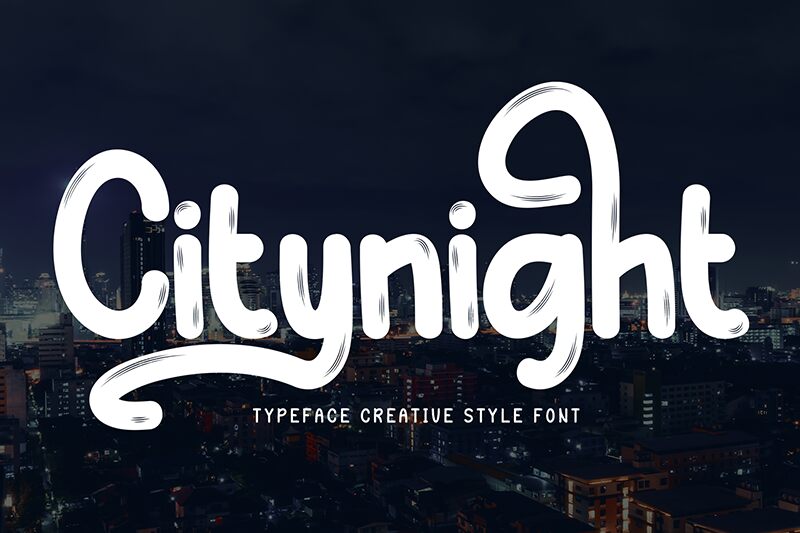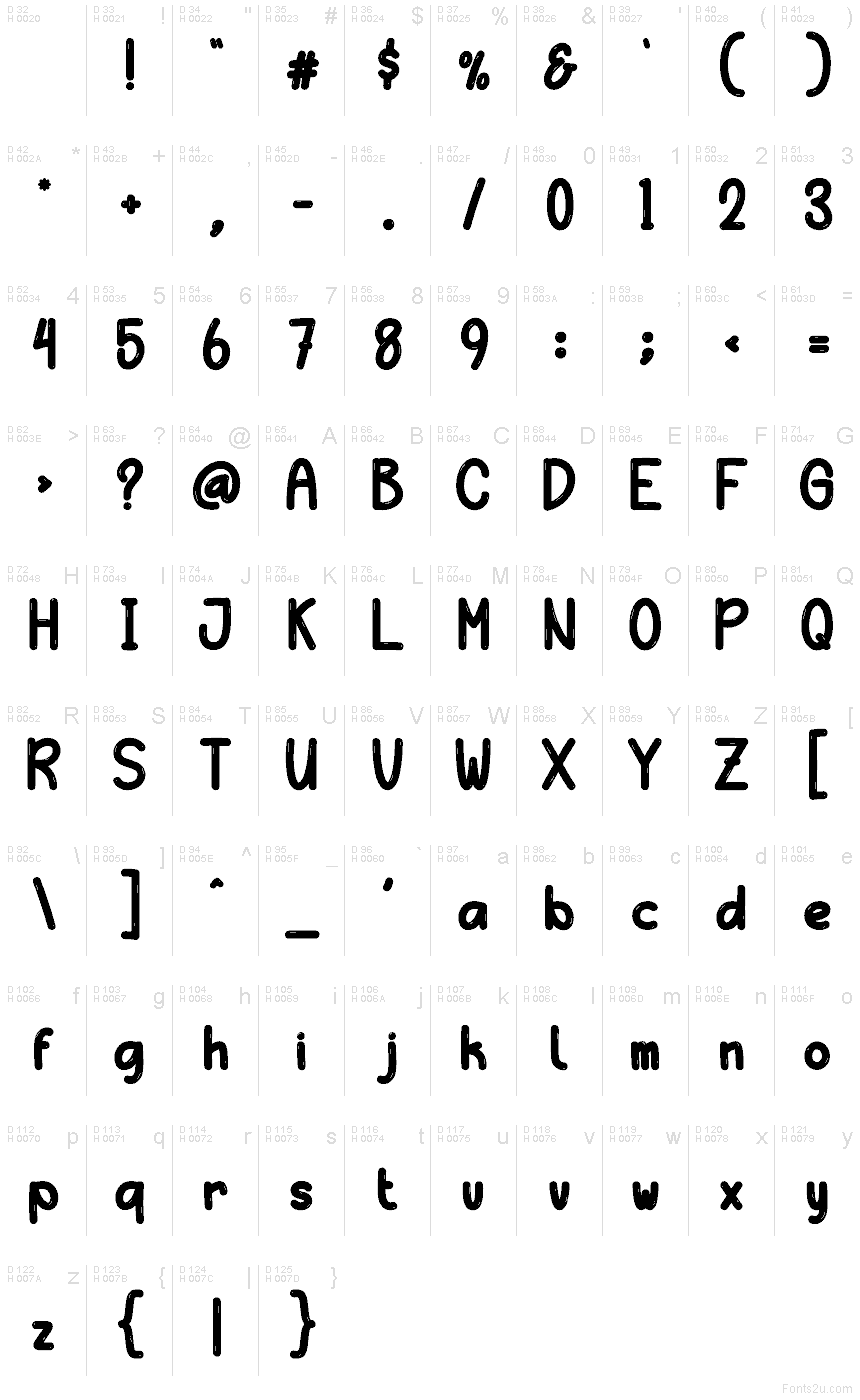
Citynight
Citynight font by Scratchones is a free brush typeface that turns handwriting into a soft, inky hug. Each rounded stroke looks like it’s been painted with a thick marker, slightly textured and glossy, giving words a cozy, handmade energy instead of a messy scribble. The letters sit close and friendly, with an easy bounce that feels casual yet readable even at smaller sizes.
Using Citynight, this free font shines on kid-focused branding, café menus, YouTube thumbnails, stickers, packaging, and playful event posters. Its bubbly rhythm brings warmth to quotes and short headlines, especially when you keep it big and bold. Pair it with a clean, simple sans serif for body text to let Citynight do the expressive, welcoming work up top.